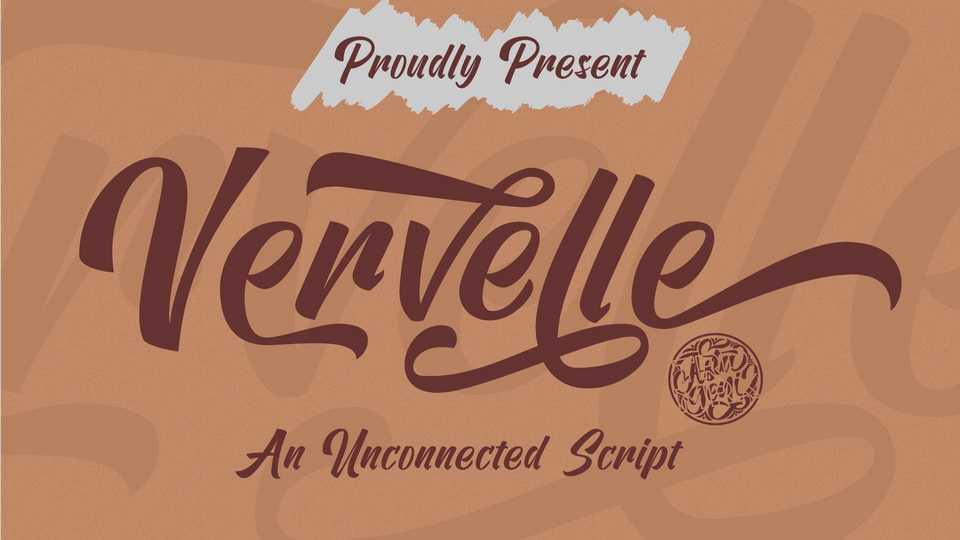
Download Vervelle font, a clean and unconnected script made with brush pen. Vervelle font is suitable for logos, labels, posters, t-shirt designs, inspirational quotes, magazine and more.